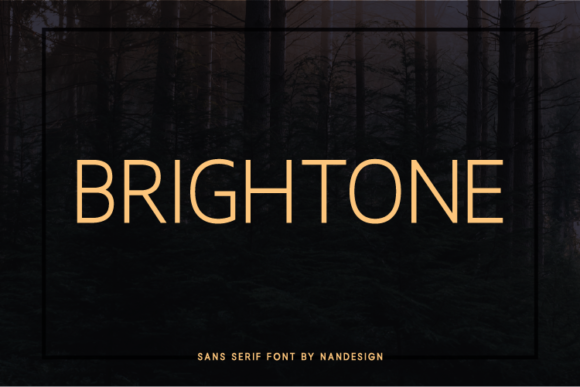
The Designer’s Delight: Unveiling the Brightone Font
I’ll never forget the time I was working on a wedding invitation project, and my client asked for a font that was both elegant and modern. I scoured the internet, tried out countless fonts, but nothing seemed quite right. That was until I stumbled upon Brightone – a magnificent sans serif font that instantly caught my eye. In this article, I’ll share my experience with Brightone, its features, and how to make the most of it in your designs.
An Honest Review of Brightone
What I Love About Brightone ✨
- ✅ Its clean and modern sans serif design makes it perfect for displays, headers, and invitations.
- ✅ The font comes with a range of OpenType features, glyphs, and stylistic alternates, giving you plenty of creative options.
- ✅ It’s highly legible, even at smaller sizes, making it suitable for a variety of design projects.
- ✅ The font is versatile and can be used for both digital and print designs.
- ⚠️ Some users may find the font a bit too similar to other popular sans serif fonts, making it less unique.
- ⚠️ The font may not be suitable for body text, as it’s designed primarily for headings and titles.
The Story Behind Brightone
Brightone was designed by a team of typographers who wanted to create a font that was both modern and elegant. Inspired by the simplicity of sans serif fonts, they crafted Brightone to be a versatile and highly legible font that’s perfect for a variety of design projects.
| Author | Nan Design |
Q: Is Brightone suitable for body text?
A: While Brightone is a highly legible font, it’s designed primarily for headings and titles. For body text, you may want to consider a font with more character width and a slightly different design.
Q: Does Brightone come with OpenType features?
A: Yes, Brightone comes with a range of OpenType features, including stylistic alternates, glyphs, and ligatures.